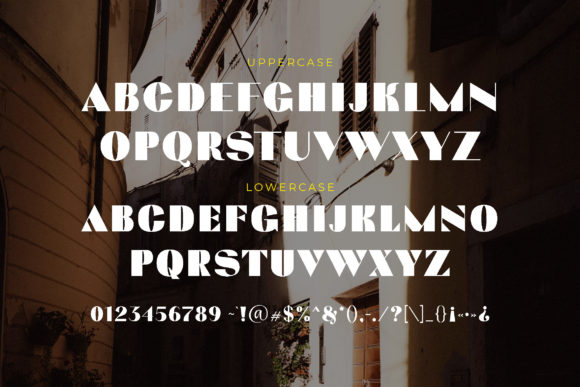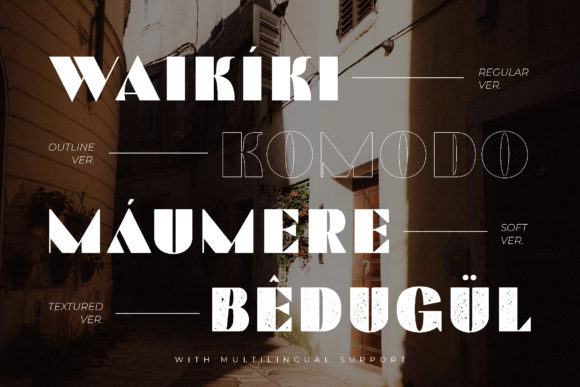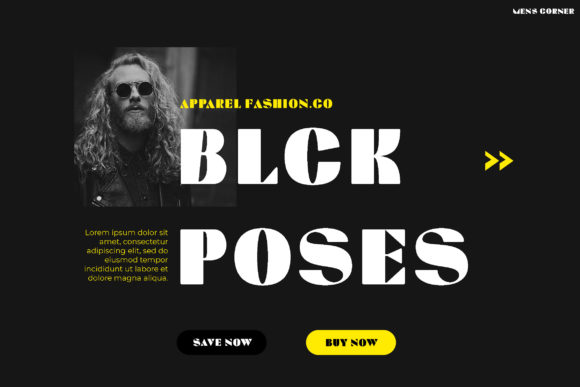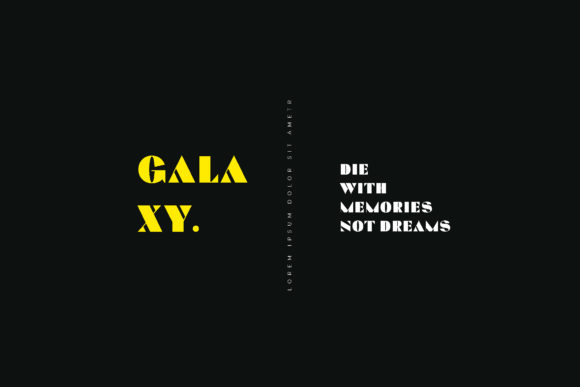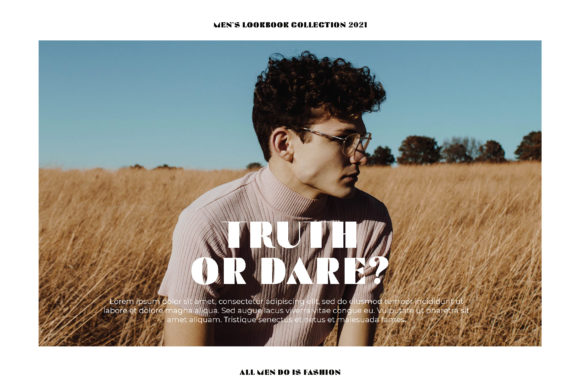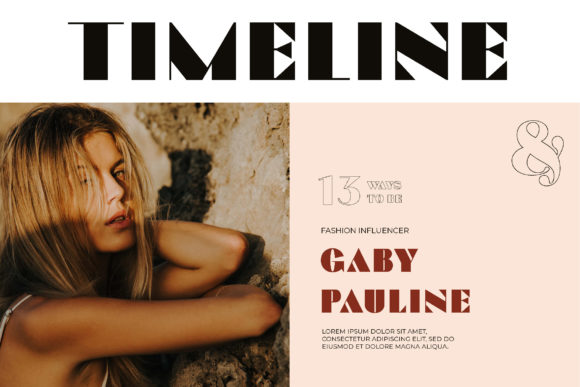
Introduction to Maboz Font
You know that moment when a single design element sparks an entire creative project? For many designers, it’s finding the perfect font that sets the tone and style of their work. For those who’ve been searching for a high-quality display font that’s both trendy and versatile, the Maboz Font is a game-changer.
This free download has become a design resource favorite among creatives, and it’s easy to see why. With its thick lettered design, Maboz Font is perfect for a wide range of applications, from t-shirts and sportswear logos to advertisements and clothing labels. Whether you’re working on a commercial project or a personal creative endeavor, Maboz Font is a valuable asset that can elevate your design to the next level.
- Unique, modern design with a touch of elegance, perfect for adding a sophisticated touch to any design resource.
Honest Review: Maboz Font
I recently stumbled upon the Maboz Font, a free download that caught my eye. As a designer, I’m always on the lookout for high-quality design resources to elevate my creative projects. In this review, I’ll share my honest thoughts on what works well and where this font falls short.
- ✨ Unique and modern design: The Maboz Font boasts a distinctive and stylish aesthetic that’s perfect for contemporary design projects.
- ✨ Transparent background: This feature makes it easy to layer the font over images or other design elements without any background clutter.
- ✨ Versatile: The font comes in multiple weights and styles, making it suitable for a wide range of creative projects.
- ⚠️ Limited language support: Unfortunately, the Maboz Font only supports a limited number of languages, which may be a concern for designers working on international projects.
- ⚠️ Not ideal for small text: While the font looks great at larger sizes, it may not be the best choice for small text or body copy.
Overall, the Maboz Font is a great addition to any designer’s toolkit, offering a unique and modern design that’s perfect for creative projects. While it has some limitations, it’s a high-quality free download that’s definitely worth exploring.
Tips for Getting the Most Out of Maboz Font
To get the most out of the Maboz Font, consider the following tips:
- Use the font in conjunction with a transparent background to create a clean and minimalist design.
- Experiment with different font sizes and styles to add visual interest to your design.
The Maboz Font is a great choice for a variety of creative projects, including:
- Branding and logo design.
- Business card and stationery design.
- Infographic and data visualization design.